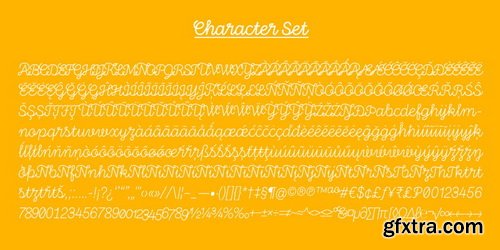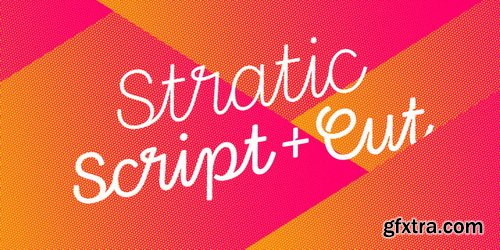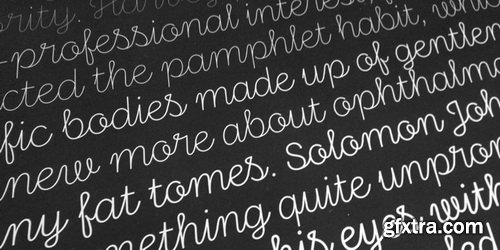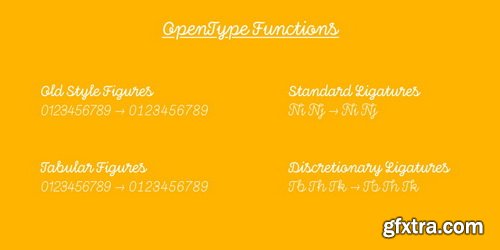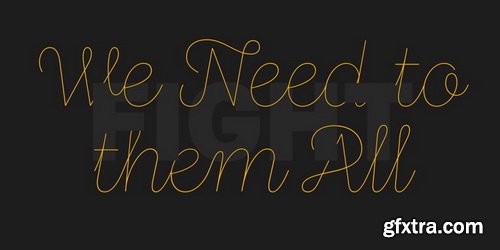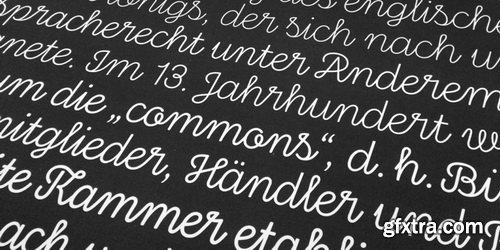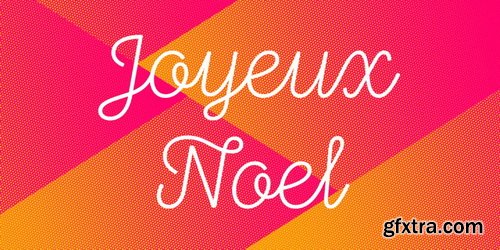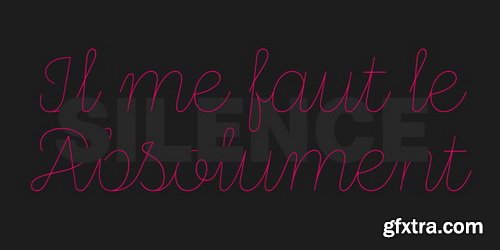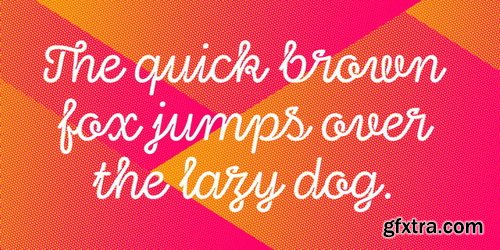
Stratic Script is an elegant family of seven fonts, all based on handwriting. The main idea was to create a script font with almost no contrast, easy to use and quite legible. The design is flawless, every letter is carefuly connected to another, in all fonts. The 6 weights, which are very close to each other, allow the designer to choose precisely the weight he needs. It’s an ideal font for fashion magazines, posters, book covers, etc…This family contains OpenType features, such as Proportional Figure, Tabular Figures, Standard & Discretional ligatures.